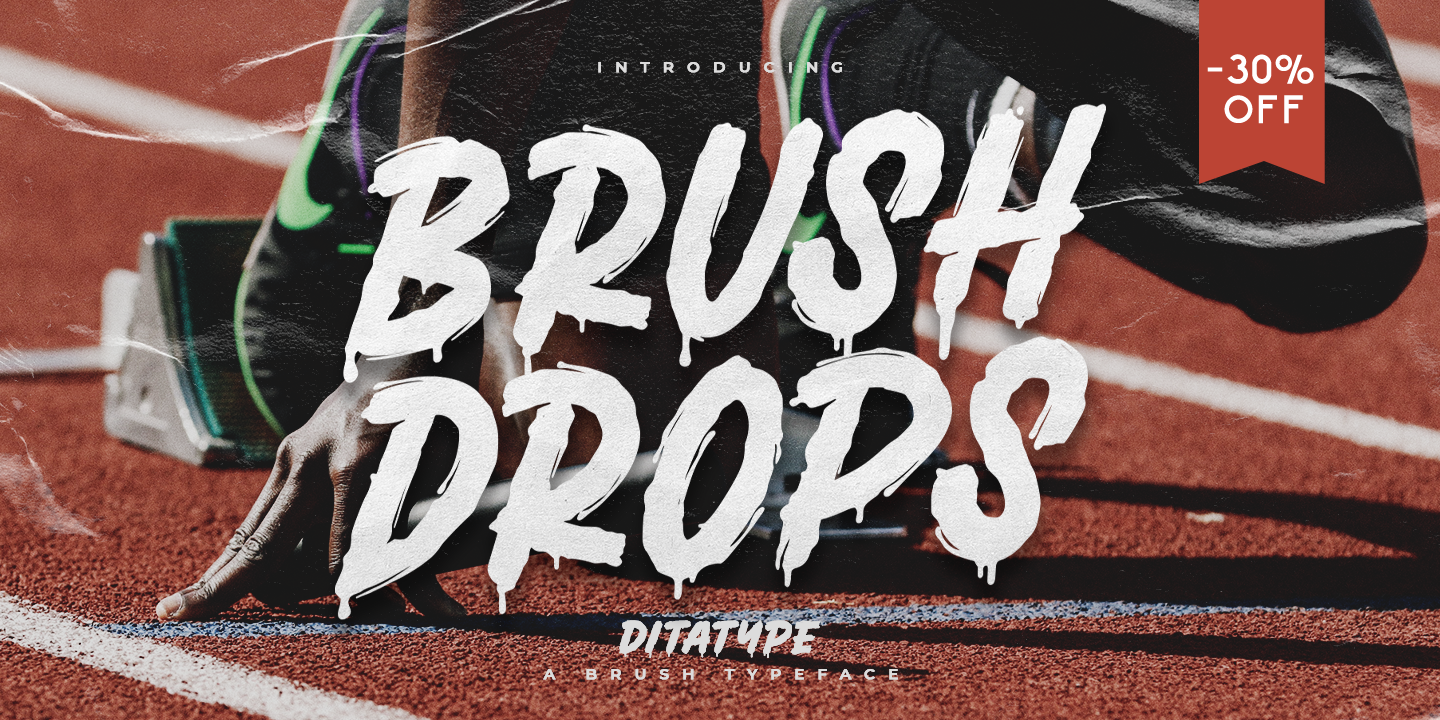
Brush Drops Font is perfect for a wide range of design applications including artistic poster designs, creative agency branding, watercolor painting workshops, art studio signage, handmade craft packaging, artistic greeting cards, expressive social media graphics, creative book covers, paint supply marketing, and inspirational editorial layouts.
What makes Brush Drops Font exciting is its fluid artistry and spontaneous creativity that perfectly captures the organic beauty and expressive freedom of watercolor brushwork and artistic paint techniques. This captivating typeface brings a sense of artistic spontaneity and creative authenticity to any project with its gracefully flowing letterforms that showcase natural brush strokes and paint-drop textures reminiscent of wet watercolor techniques and artistic expression. The font's organic character shapes and fluid proportions create an atmosphere of creative freedom and artistic inspiration that resonates with audiences seeking authenticity, artistic expression, and handcrafted beauty, making it an ideal choice for brands emphasizing creativity, artistic integrity, and expressive design.
The Brush Drops Font family includes multiple weights and styles designed to accommodate various artistic and creative design requirements. The collection typically features regular, bold, light, and textured variations, each maintaining the font's signature brushwork aesthetic while providing comprehensive design flexibility. Additional paint symbols and artistic ornaments enhance the family's creative potential for art-focused design projects.
Professional designers appreciate Brush Drops Font's exceptional artistry and comprehensive character support. The font includes extensive punctuation marks, numerical figures, artistic symbols, and international language capabilities, making it perfect for global creative brands and international art projects. Its artistically optimized spacing and kerning ensure professional results in art branding, creative packaging, and artistic marketing applications.
The growing recognition of Brush Drops Font in the creative community reflects its ability to enhance artistic identity and create memorable visual experiences that celebrate the beauty of brushwork and watercolor artistry. Whether used for art studio branding, creative workshop materials, or artistic creative projects, this font delivers exceptional results that honor the spontaneous beauty of brush painting and artistic expression.